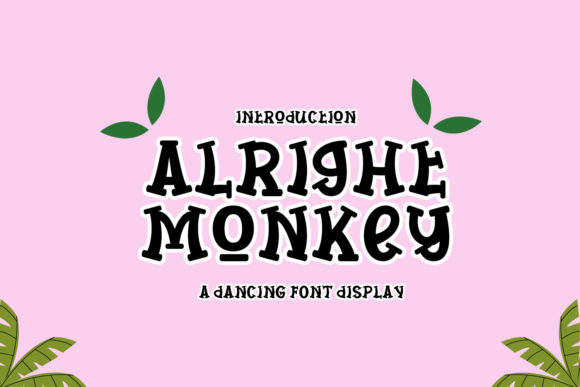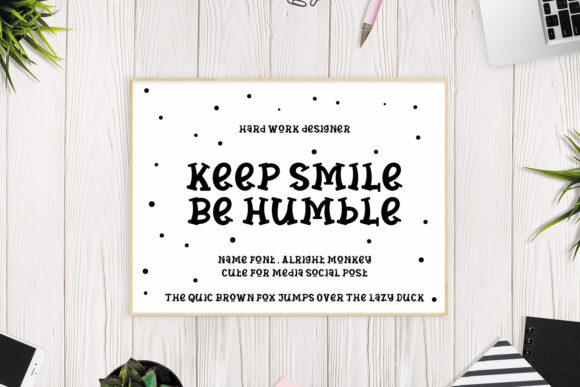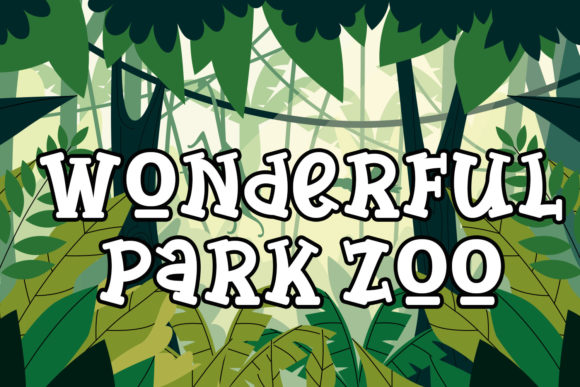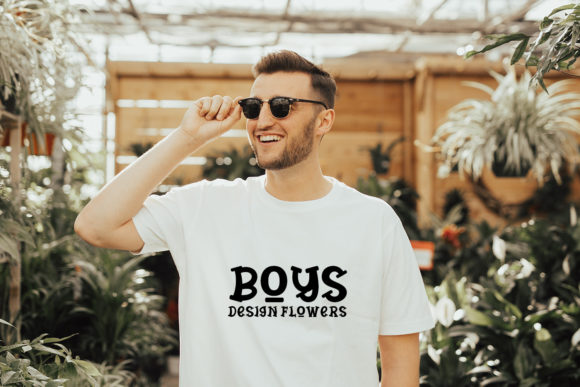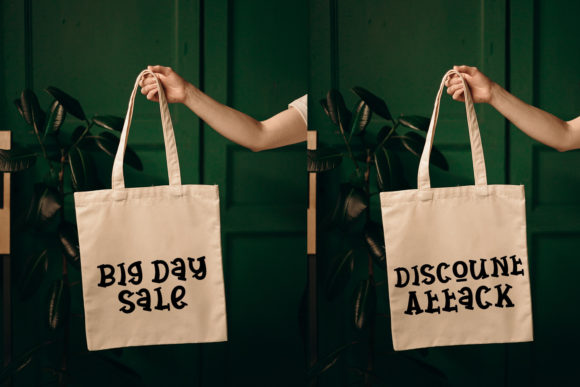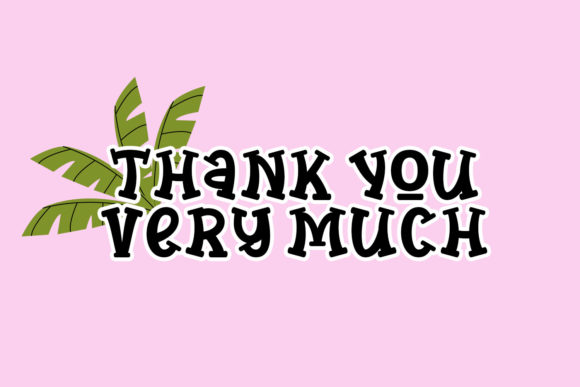
Introducing Alright Monkey Font: Add a Touch of Whimsy to Your Designs
Are you tired of using the same old fonts in your designs? Look no further than Alright Monkey Font, a cute and quirky serif font that’s sure to give your creations a special feel. With its unique features and playful charm, Alright Monkey is perfect for designers and crafters looking to add a touch of whimsy to their work.
What Makes Alright Monkey Font So Special?
Alright Monkey Font is a one-of-a-kind typeface that stands out from the crowd. Its serif design gives it a classic feel, while its quirky features add a playful touch. The font is perfect for designs that need a bit of personality, such as social media posts, animal-related designs, and more.
Uses for Alright Monkey Font
So, what can you use Alright Monkey Font for? The possibilities are endless! Here are a few ideas to get you started:
- Social Media Posts: Add a touch of whimsy to your social media posts with Alright Monkey Font. It’s perfect for creating eye-catching graphics and engaging content.
- Animal-Related Designs: If you’re designing something for an animal shelter, pet store, or wildlife organization, Alright Monkey Font is a great choice. Its playful feel is sure to appeal to animal lovers.
- Crafting and DIY Projects: If you’re a crafter or DIY enthusiast, Alright Monkey Font is a great addition to your design toolkit. Use it to create custom signs, labels, and more.
- Children’s Designs: Alright Monkey Font is also perfect for designs aimed at kids. Its playful feel and cute appearance make it a great choice for children’s books, educational materials, and more.
Why Choose Alright Monkey Font?
So, why should you choose Alright Monkey Font for your designs? Here are just a few reasons:
- Unique and Eye-Catching: Alright Monkey Font is a one-of-a-kind typeface that’s sure to grab attention.
- Playful and Whimsical: If you’re looking to add a touch of whimsy to your designs, Alright Monkey Font is a great choice.
- Easy to Read: Despite its quirky features, Alright Monkey Font is easy to read, making it perfect for body text and headings.
- Versatile: Alright Monkey Font can be used for a wide range of designs, from social media posts to crafting and DIY projects.
Tips for Using Alright Monkey Font
Here are a few tips for getting the most out of Alright Monkey Font:
- Use it Sparingly: While Alright Monkey Font is cute and playful, it can be overwhelming if used too much. Use it sparingly to add a touch of whimsy to your designs.
- Pair it with Other Fonts: Alright Monkey Font pairs well with other fonts, especially sans-serif fonts. Experiment with different pairings to find the perfect combination.
- Experiment with Colors: Alright Monkey Font looks great in a variety of colors. Experiment with different colors and gradients to find the perfect look for your design.
Alright Monkey Font is a unique and playful serif font that’s perfect for designers and crafters looking to add a touch of whimsy to their work. With its quirky features and easy-to-read design, it’s perfect for a wide range of designs, from social media posts to crafting and DIY projects. So why not give Alright Monkey Font a try and see how it can add a special feel to your designs?